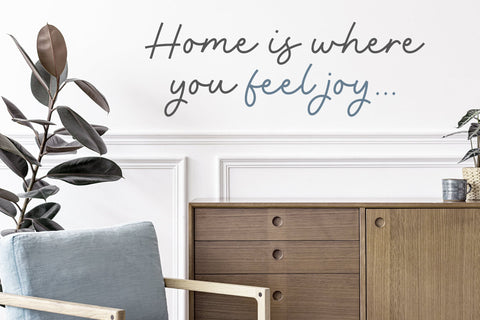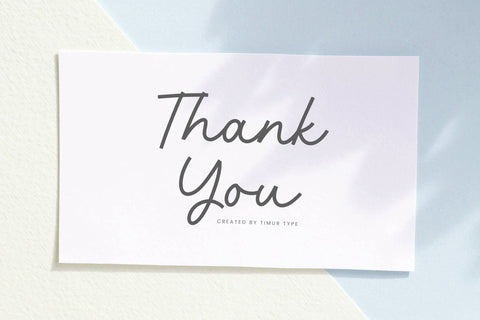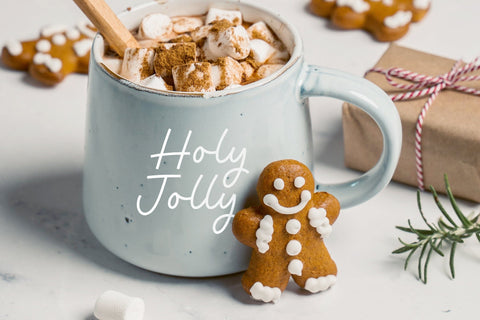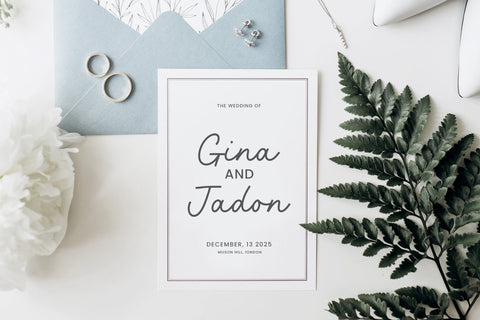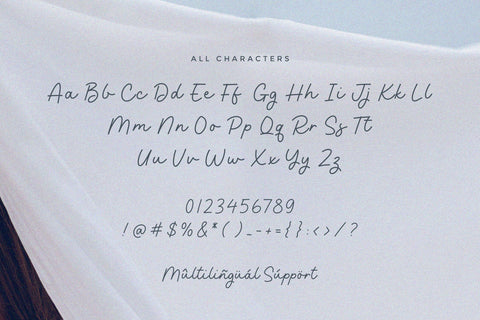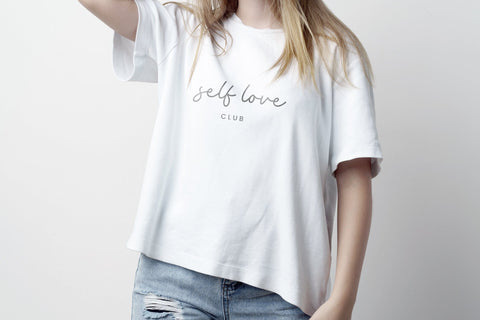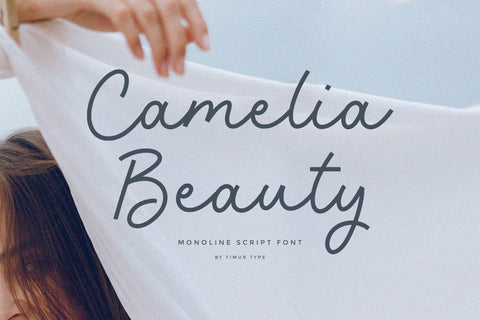
Camelia Beauty - Monoline Script font
Proudly Present Camelia Beauty
The monoline script fonthave created is a stylish and elegant choice for various design projects. Inspired by Latin script, this font features smooth and flowing lines that give it a sense of sophistication. With its consistent stroke weight, each letter maintains a balanced and harmonious appearance.
This monoline script font is meticulously designed with precision and care, offering a timeless appeal. Its graceful curves and connected letterforms create a seamless rhythm that adds a touch of fluidity to any piece of text. Whether used for branding, invitations, logos, or headlines, this font effortlessly captures attention and exudes a sense of refined elegance.
The simplicity of the monoline style enhances the readability and versatility of the font. It can blend seamlessly with both vintage and contemporary designs, making it a perfect choice for a wide range of projects. Its Latin form adds a universally recognized and familiar appeal, ensuring clear communication in various languages.
Overall, this monoline script font provides a combination of both classic charm and modern sensibility. Its flowing lines, elegant curves, and clear legibility make it an ideal choice for any design that seeks to convey a sense of sophistication and timeless beauty.
Camelia Beauty font also multilingual support.